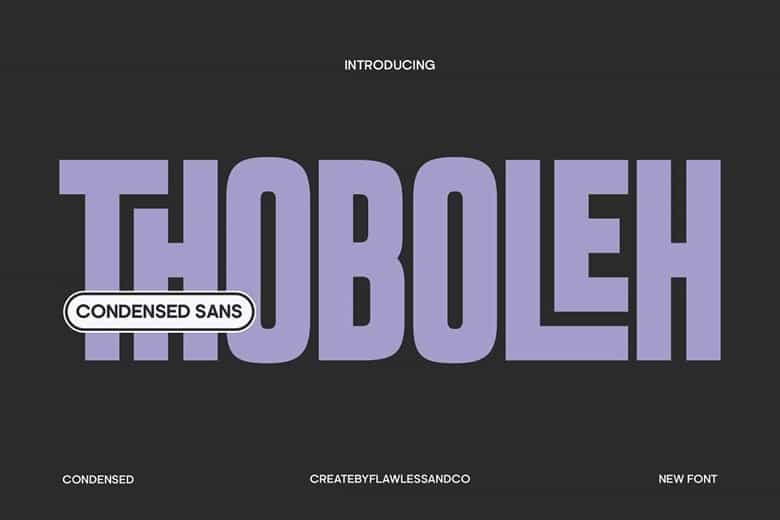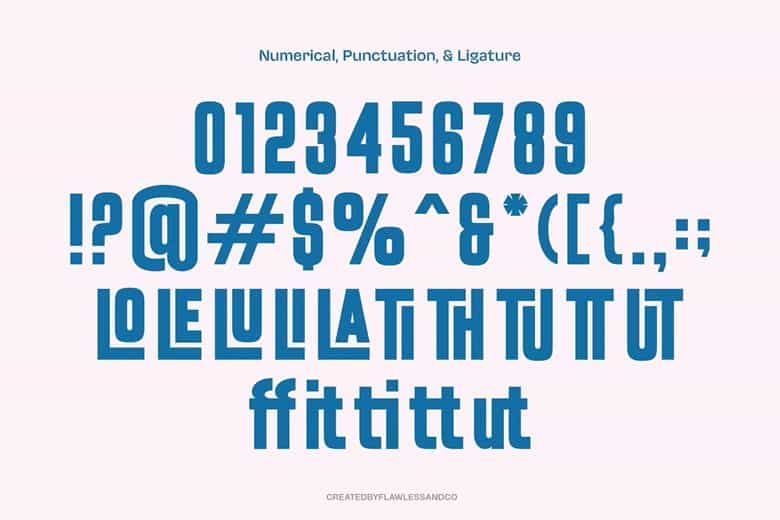
Thoboleh is a new sans serif typeface, which was designed and unleashed well-done with an element of personality. Each curve of Thoboleh speaks of the bigness of life – essentially chubby, cheerful and humorous, it is an ideal font for creative artists who wish to add playfulness and dynamism in their compositions.